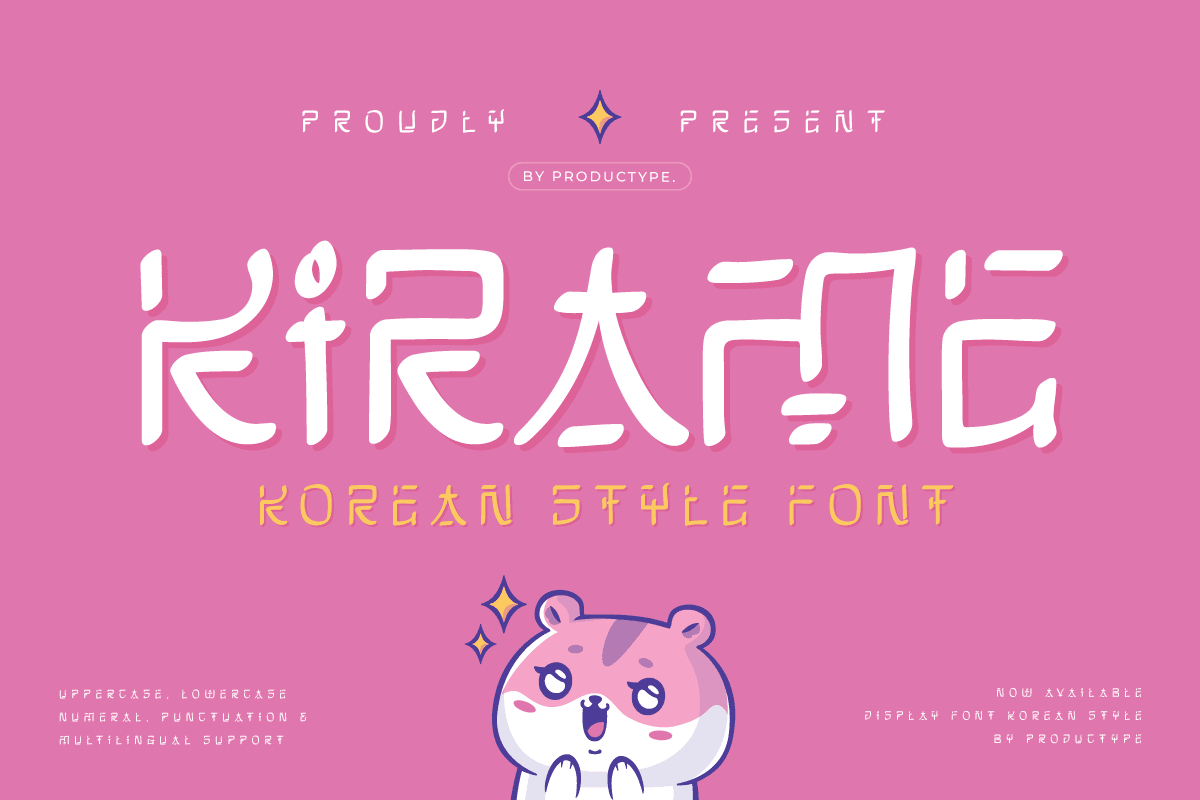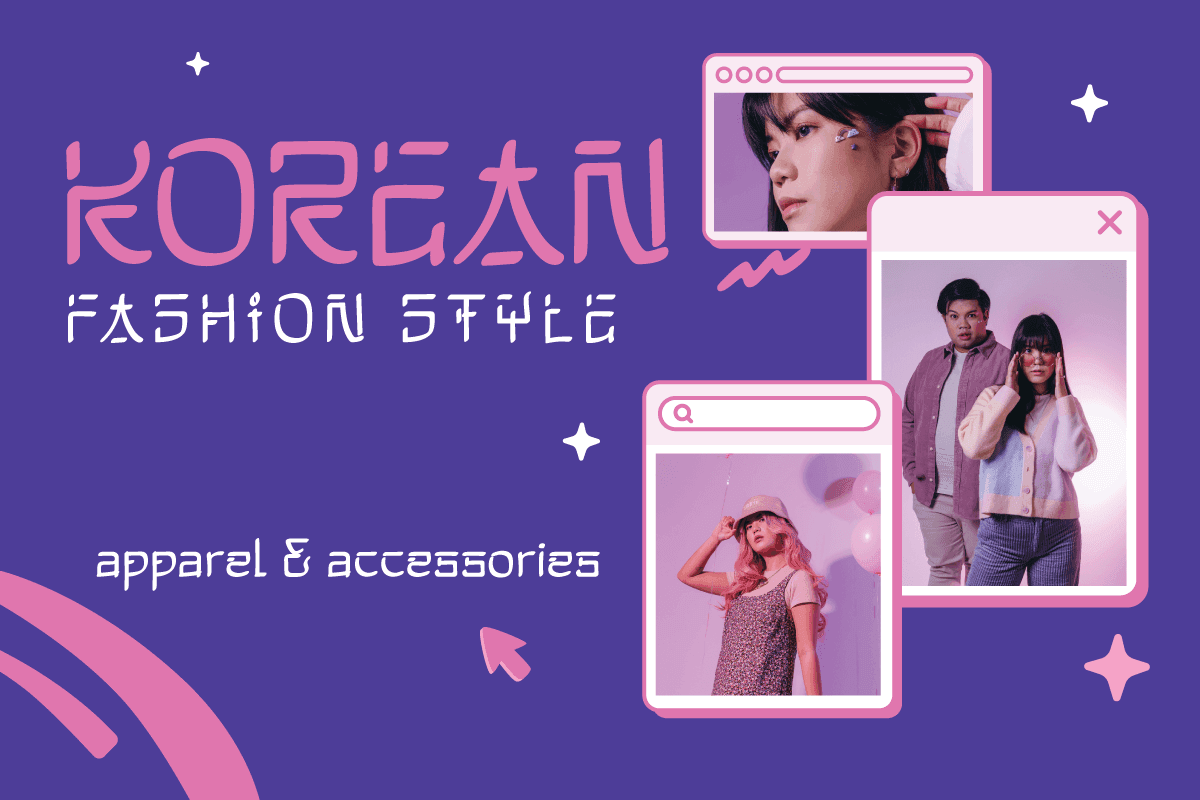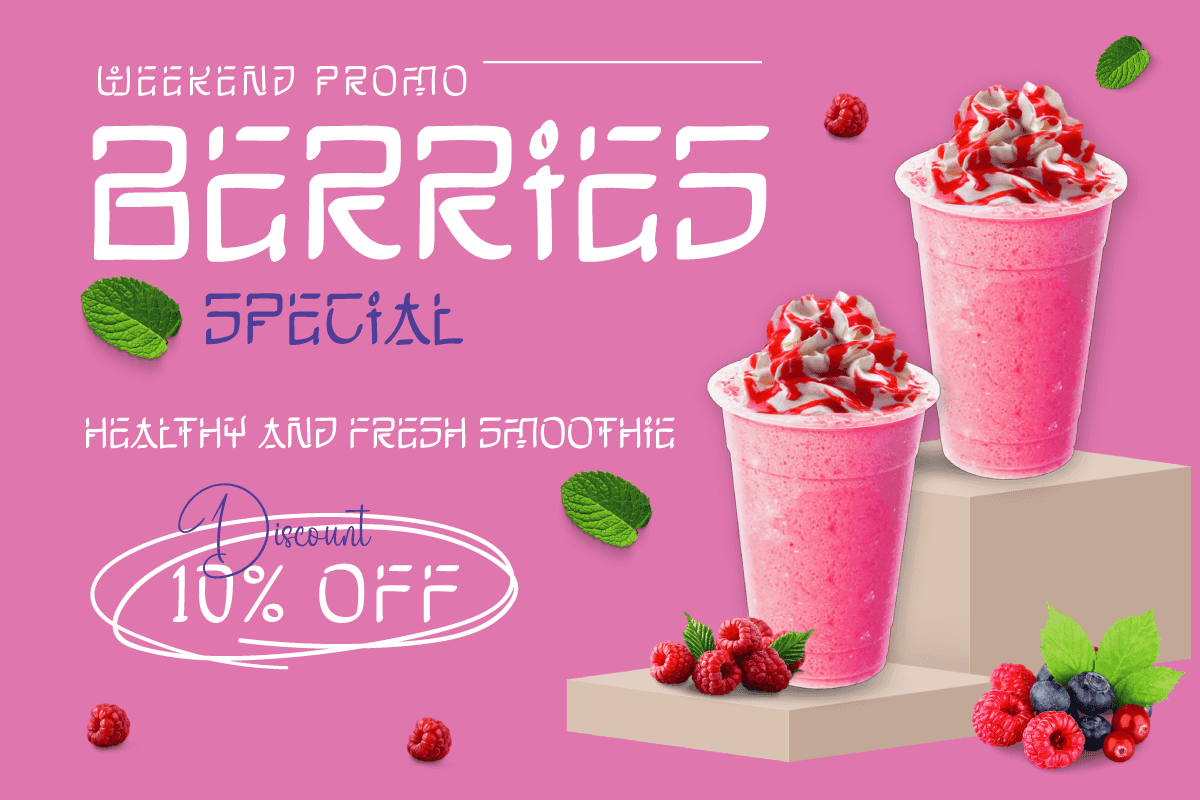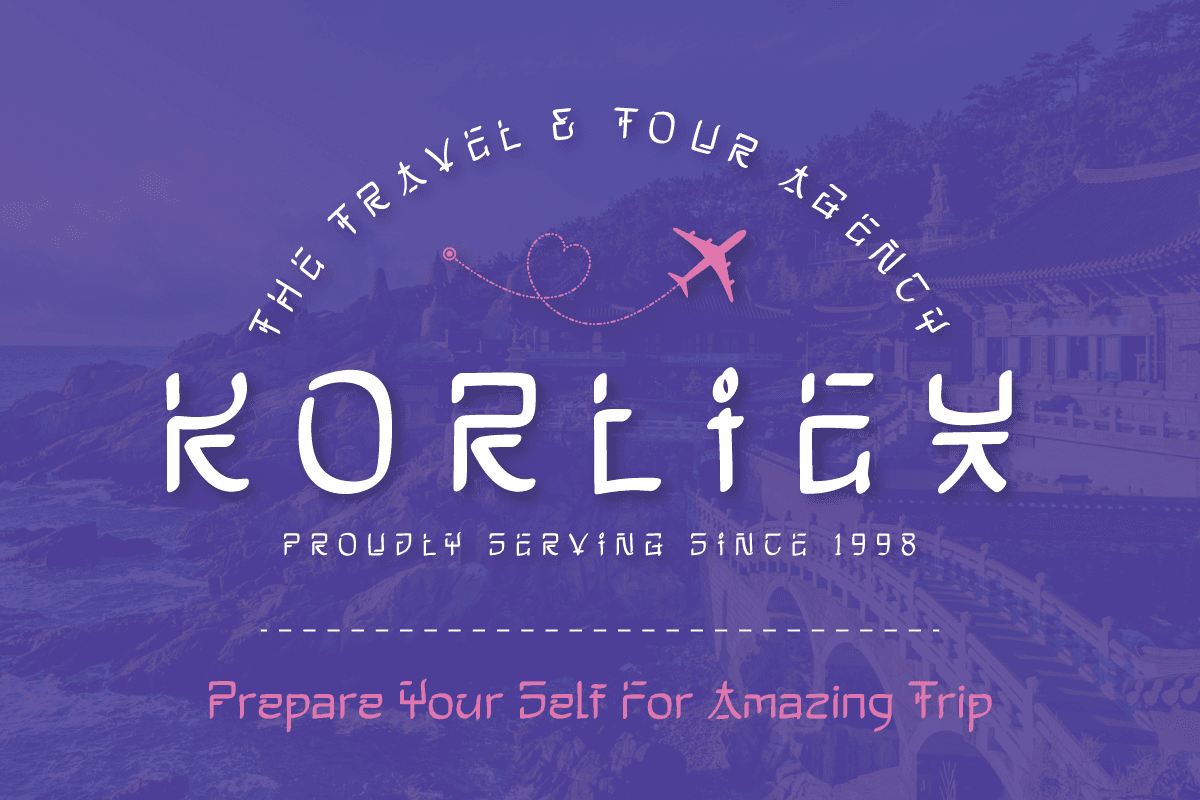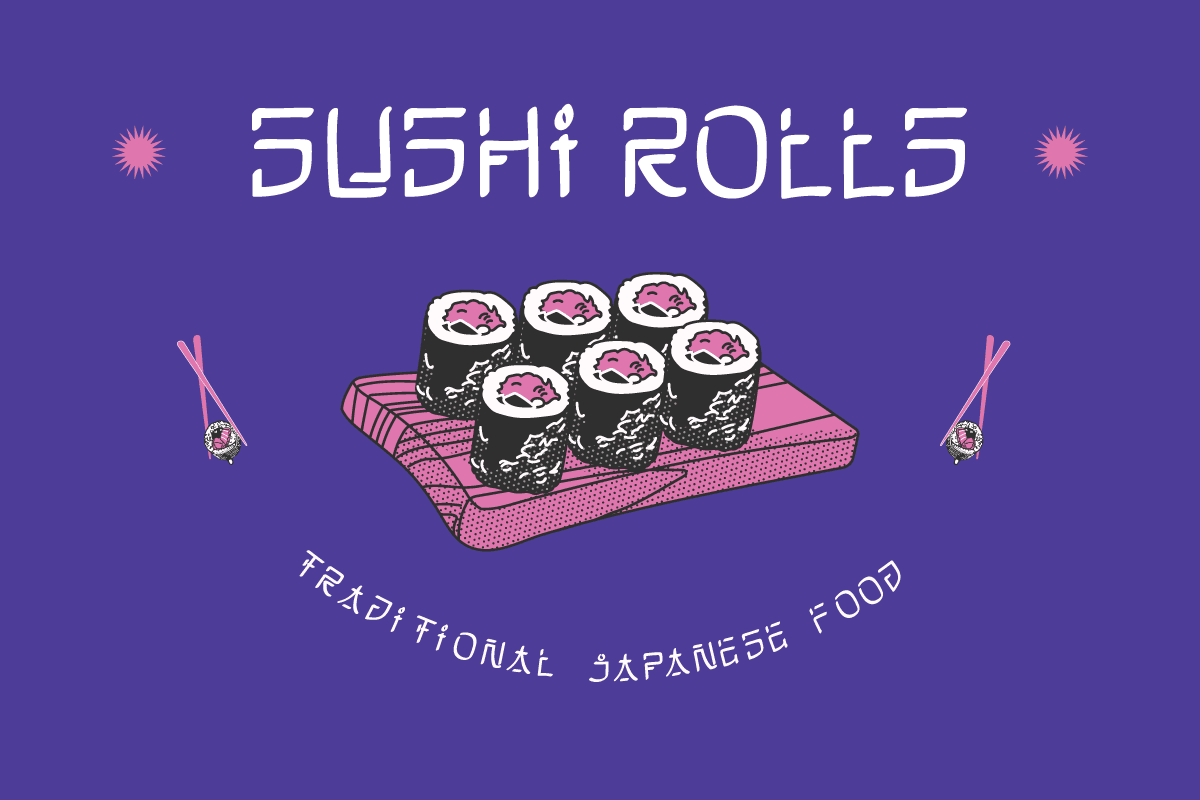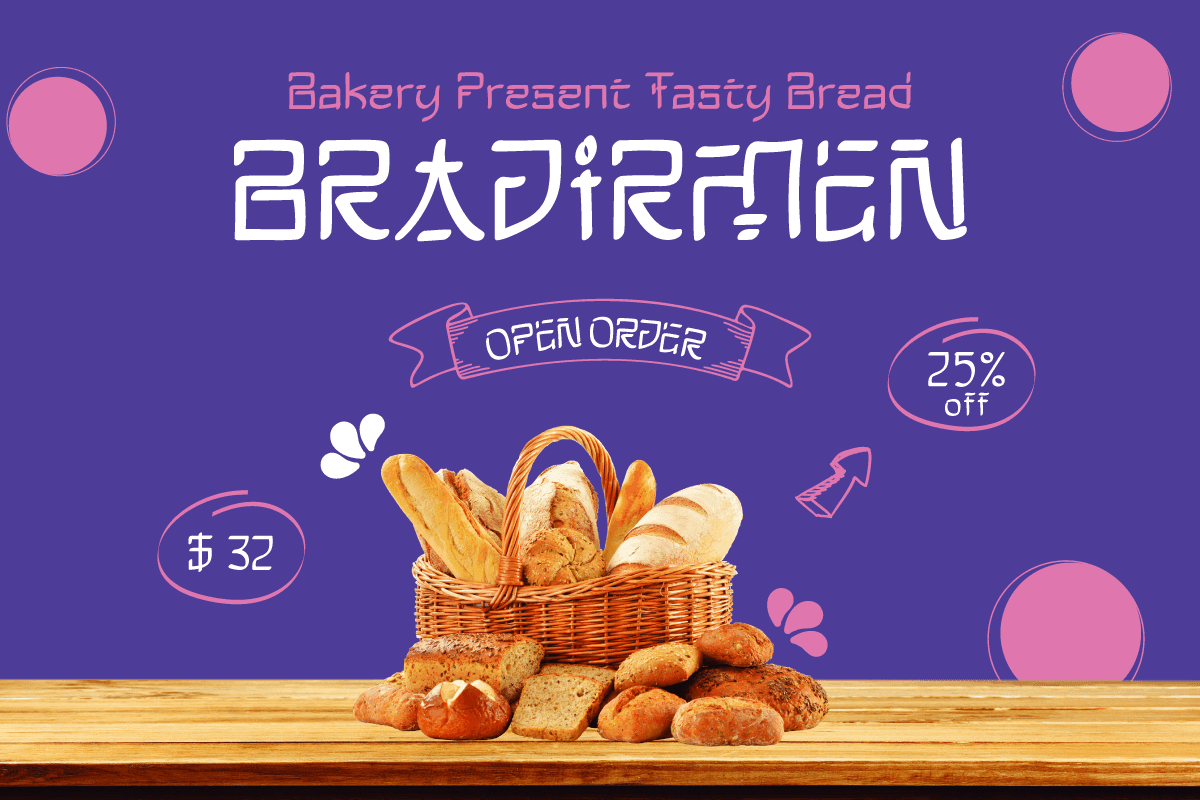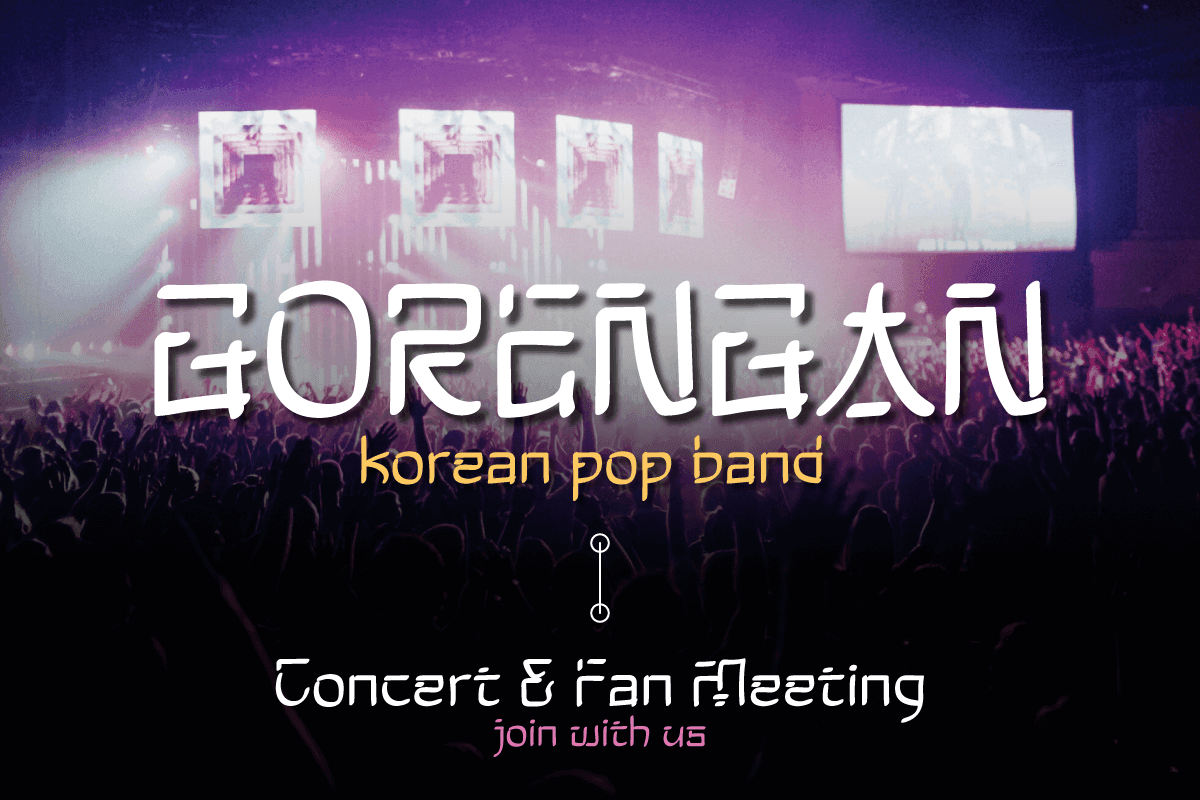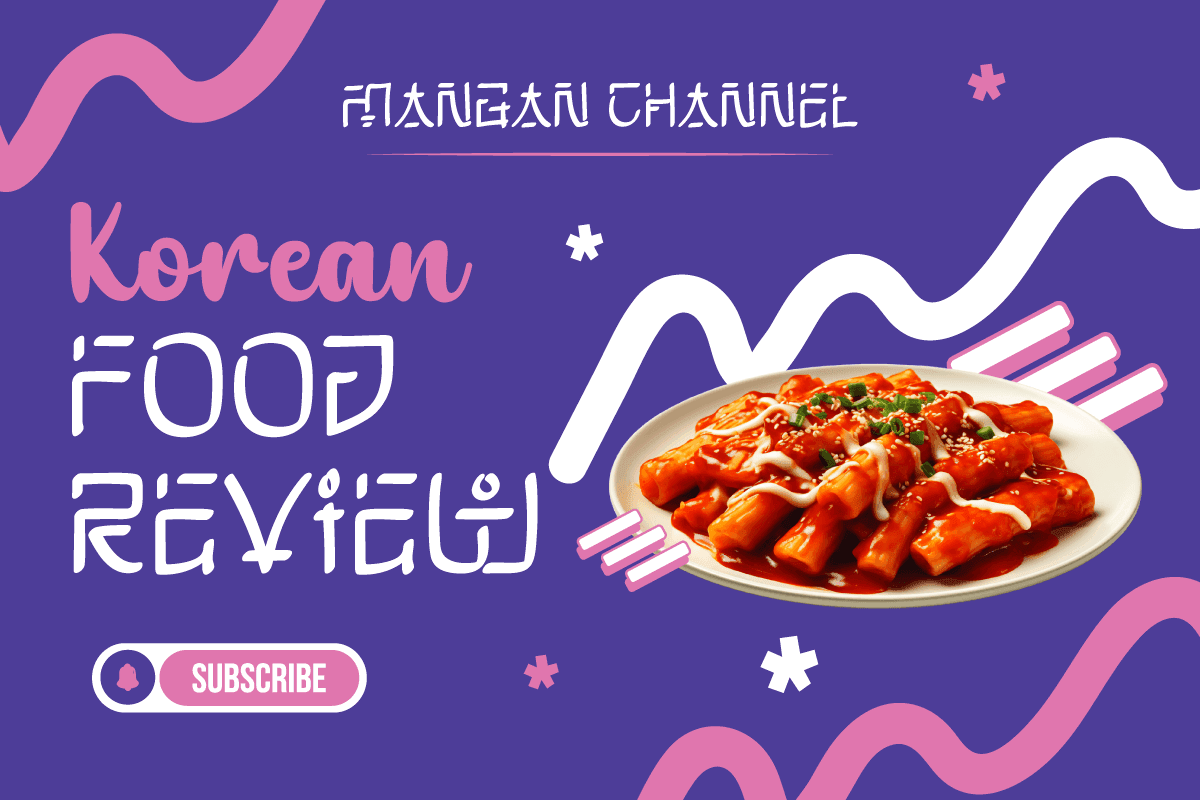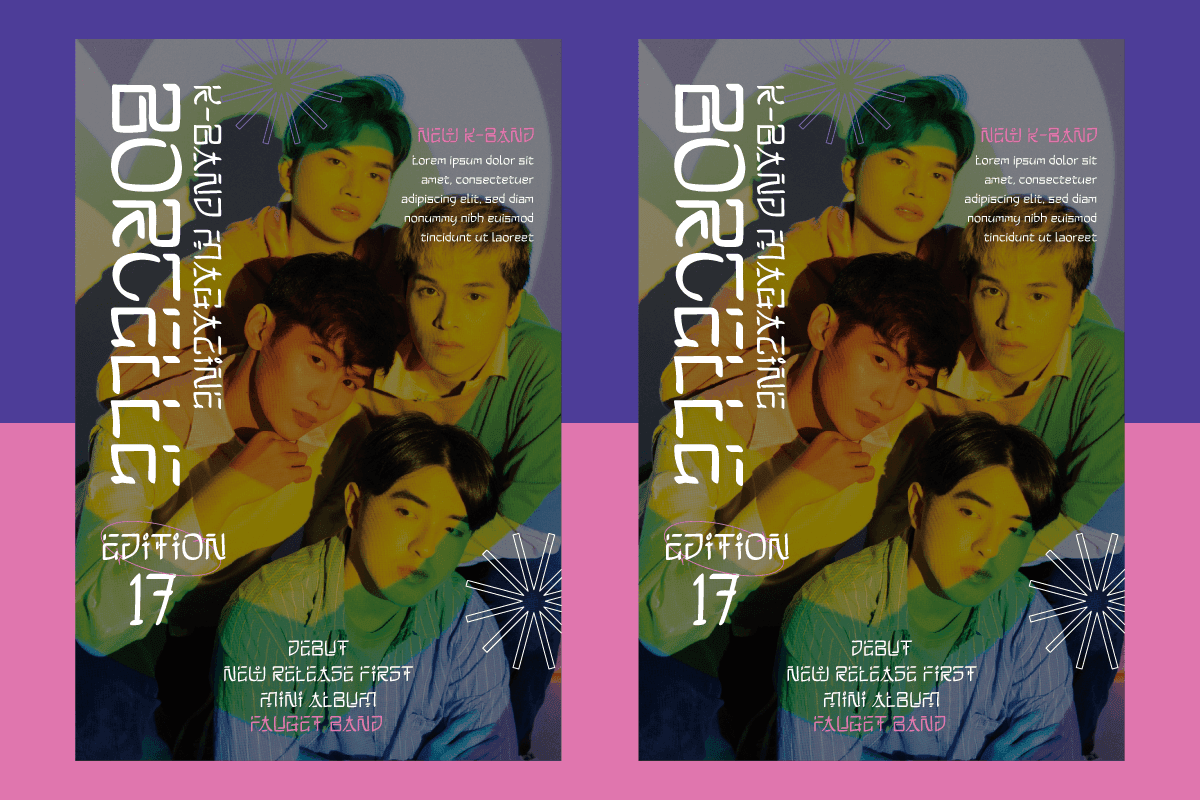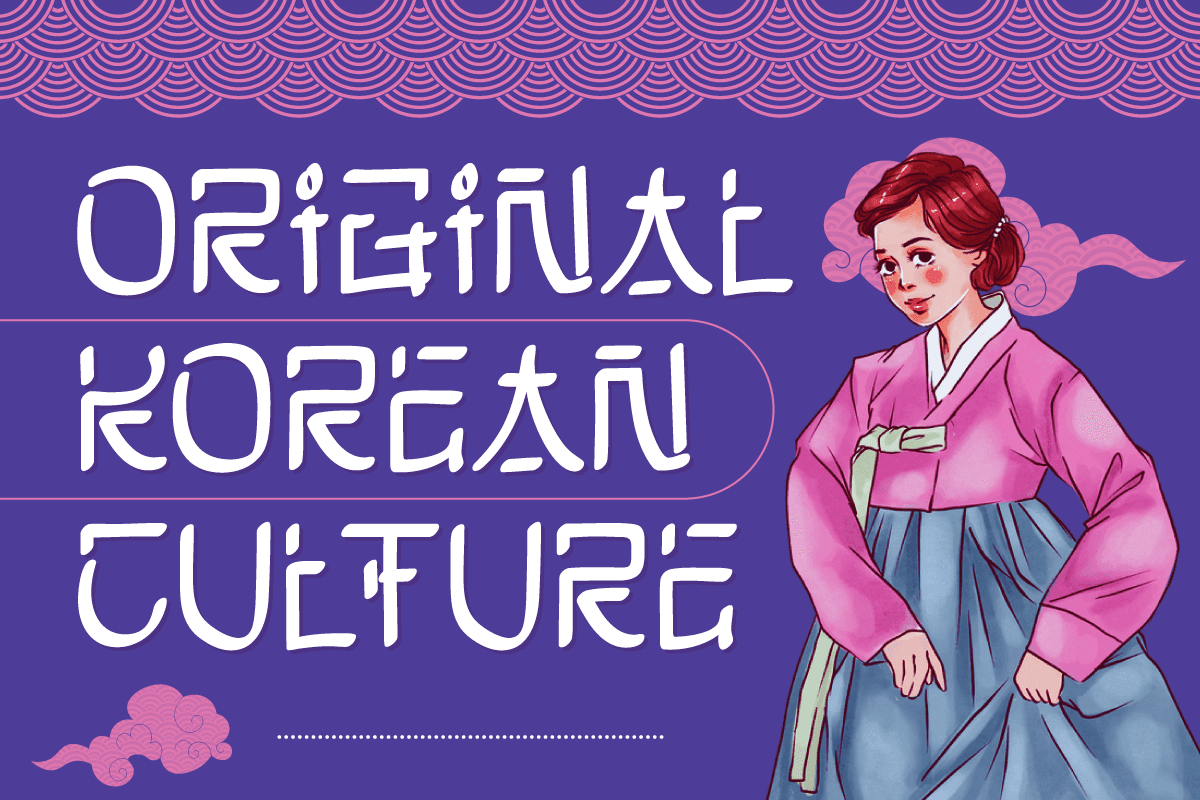
Bring Korean elegance to your designs with Kirame, a charming font with a distinct Asian charm. With each letter exuding tenderness and beauty, Kirame takes you on an enchanting journey through Korea’s rich culture.
Kirame is the perfect choice for branding projects, logo typography, and special events that want to embrace the beauty of Asia. The classic yet modern design gives a unique and charming touch to each piece.
Let Kirame take you on a journey through the wonders of Korean culture. With this font, bring stunning beauty to your designs, making every project a representation of timeless beauty.